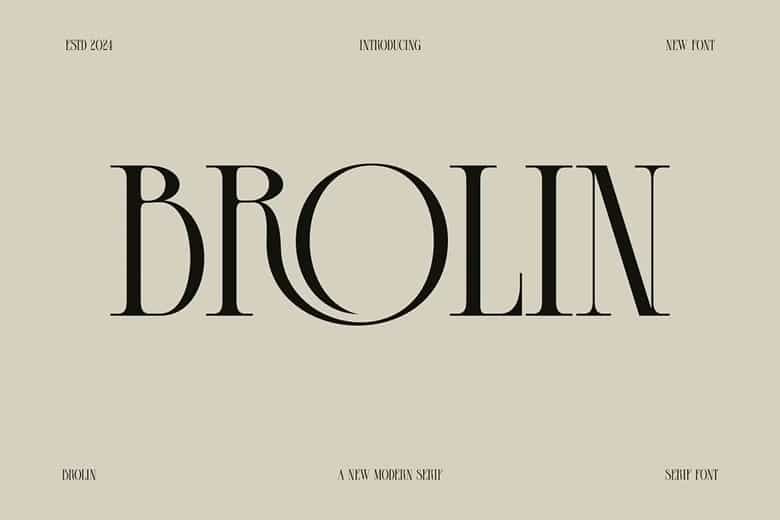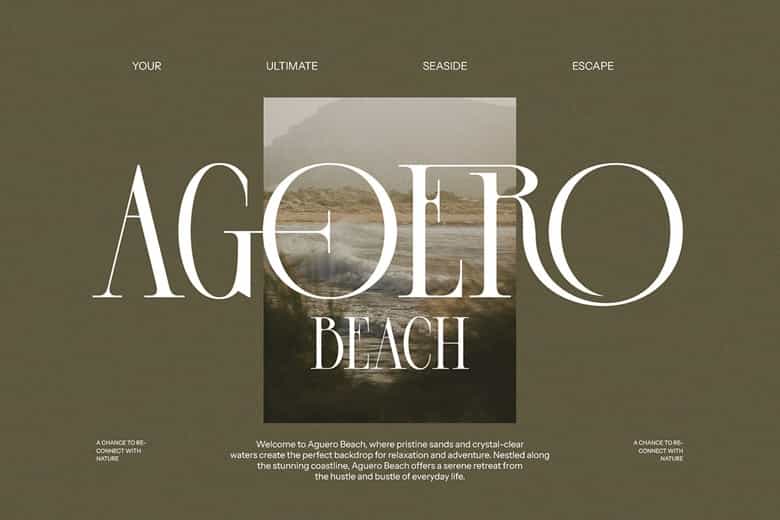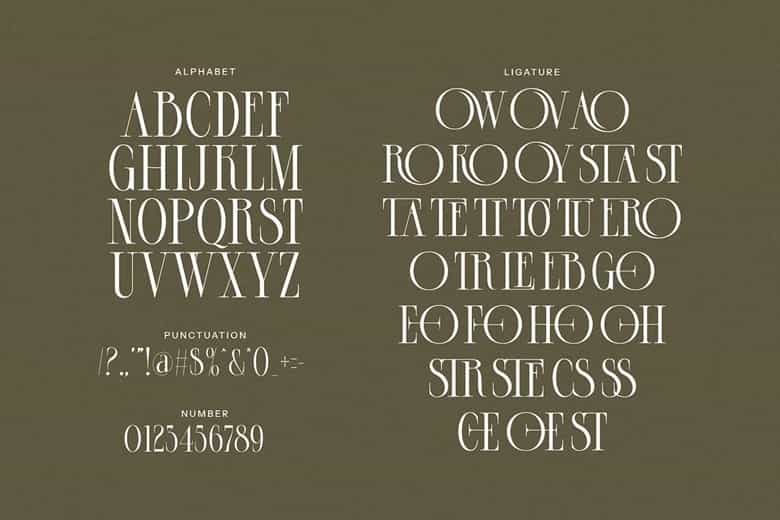
Brolin is a new modern serif font which extends the idea of liberty and naturalism. Described as soft, rolling landscapes and golden colors, Brolin is a font that is both stable as well as elegant. Due to smooth connections between the letters and harmony of curves this font will fit perfectly into any design.